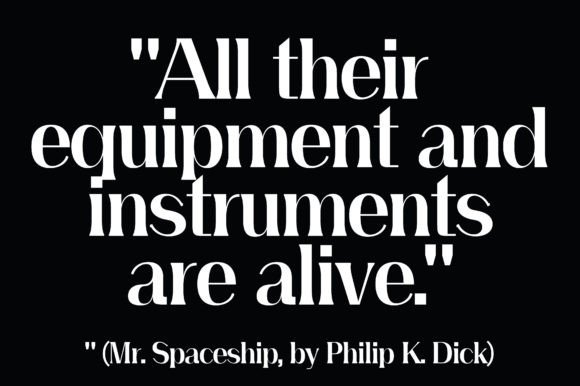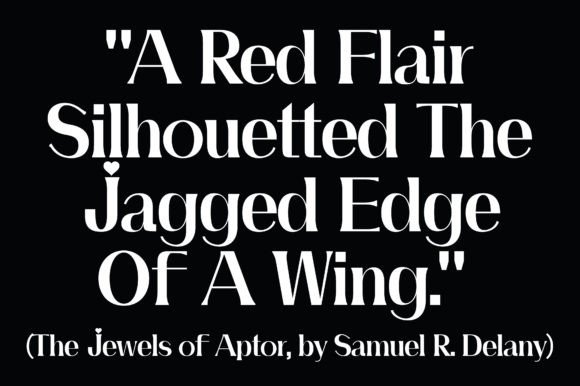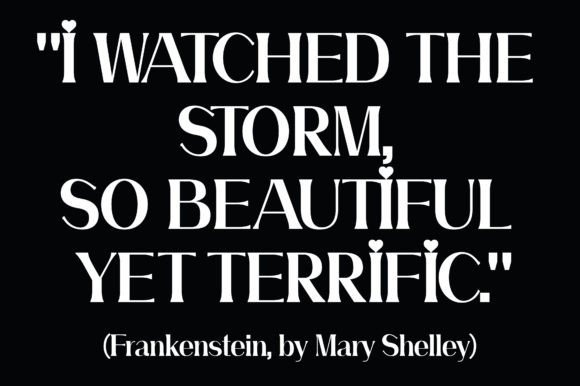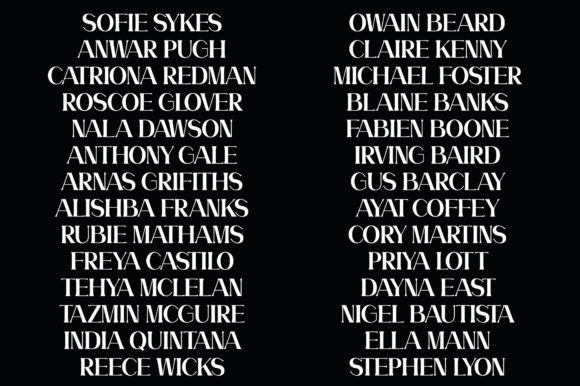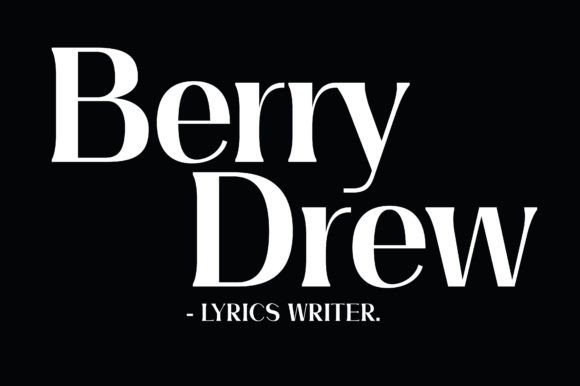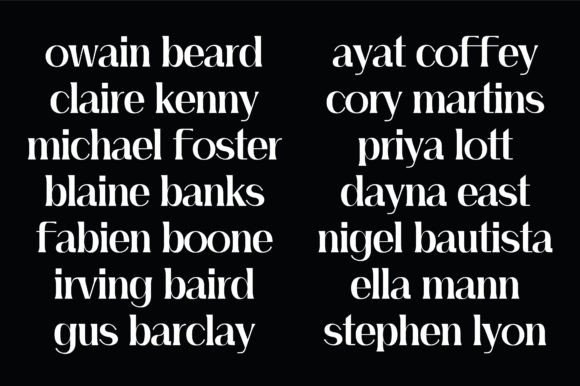
Discover the Elegance of Emilia Font: A Serif Typeface that Embodies Delicacy
In the world of typography, a font can evoke emotions, convey messages, and add aesthetic value to any design project. Among the numerous typefaces available, Emilia Font stands out for its unique blend of delicacy and sophistication. This beautifully crafted serif typeface is designed to capture the essence of elegance, making it a perfect choice for designers and crafters seeking to add a touch of refinement to their work.
The Inspiration Behind Emilia Font
Emilia Font was created with a singular focus: to embody the concept of delicacy. The designers behind this exquisite typeface drew inspiration from the beauty and simplicity of Italian culture, naming it “Emilia” in tribute to the Italian region known for its rich history, art, and architecture. This font is a testament to the power of subtlety, where every curve and line is carefully crafted to convey a sense of smoothness and sharpness simultaneously.
Design Characteristics of Emilia Font
Emilia Font boasts a range of design characteristics that make it a standout in the world of typography. Its glyph curves are remarkably smooth, providing a fluid and harmonious appearance that is pleasing to the eye. At the same time, the exterior lines of the font are sharp and well-defined, creating a striking contrast that captures attention and makes it an “eye-catchy” font. This unique combination of smoothness and sharpness allows Emilia Font to convey a sense of delicacy without compromising on clarity or legibility.
Versatility and Applications of Emilia Font
One of the key strengths of Emilia Font is its versatility. This typeface can be used across a wide range of design projects, from elegant wedding invitations and luxury branding to sophisticated editorial content and digital media. Whether you’re working on a high-end fashion magazine, a gourmet food blog, or a bespoke wedding stationery, Emilia Font can add a touch of class and sophistication to your design.
Why Choose Emilia Font for Your Projects?
There are several reasons why designers and crafters might choose Emilia Font for their projects. Firstly, its unique blend of smooth curves and sharp lines makes it a visually appealing choice that can help your work stand out. Secondly, the font’s emphasis on delicacy and elegance makes it perfect for projects where a touch of refinement is desired. Finally, Emilia Font’s legibility and clarity ensure that your message is communicated effectively, making it a practical choice for both print and digital media.
Tips for Using Emilia Font Effectively
To get the most out of Emilia Font, consider the following tips:
- Pair it with contrasting fonts: Combine Emilia Font with a sans-serif or script font to create visual interest and hierarchy in your design.
- Experiment with sizes: Emilia Font’s delicate features are beautifully showcased at larger sizes, but it remains legible even at smaller sizes, making it suitable for body text.
- Pay attention to color: Emilia Font’s elegant lines and curves are complemented by a range of colors, from rich blacks and deep blues to soft pastels.
Emilia Font is a beautiful and versatile serif typeface that embodies the essence of delicacy and sophistication. Its smooth curves and sharp exterior lines make it a standout in the world of typography, while its legibility and clarity ensure that it is a practical choice for a wide range of design projects. Whether you’re a designer, crafter, or simply someone who appreciates the beauty of typography, Emilia Font is definitely worth exploring. So why not give it a try in your next project and discover the power of elegance for yourself?